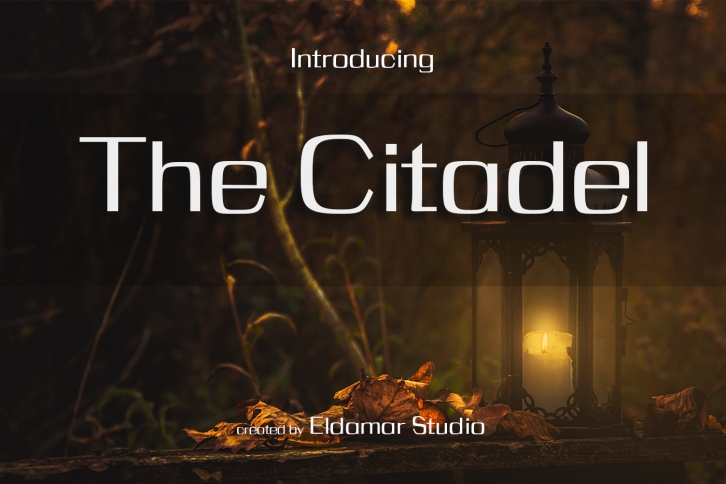
The Citadel is a trendy and unique font with an authentic style. It was designed by Eldamar Studio and it's a great choice for creative people who need such a font. It was released on August 9, 2018 and the file size is 4.6 MB. The Citadel will add an organic vibe to any design idea!